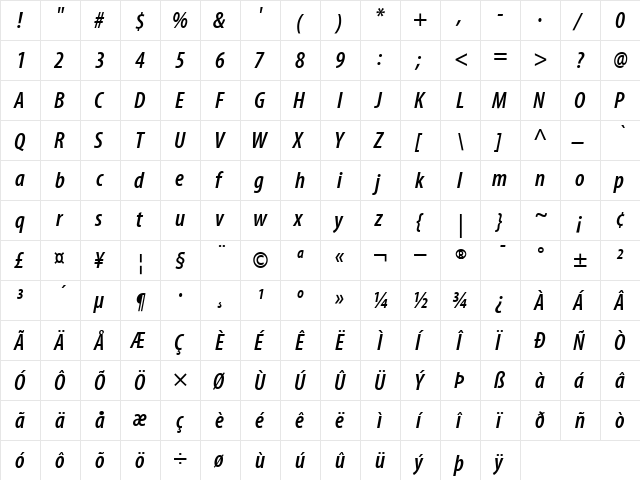
MyriadCn-SemiBold Semi BoldItalic Font Preview
Design Context for MyriadCn-SemiBold Typeface
MyriadCn-SemiBold takes a measured approach to typography — its balanced proportions and neutral character make it a reliable workhorse for both digital and print work. The slanted form adds forward momentum and visual energy. Its bold stroke weight gives it real presence on the page.
Pro Tip: Try MyriadCn-SemiBold for annotation and caption copy alongside an upright companion — the contrast in angle creates a dynamic but ordered typographic system.